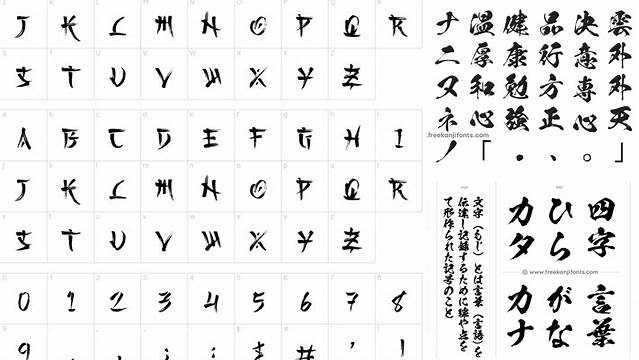
Introduction to Japanese Calligraphy Fonts
Japanese calligraphy, or Shodo, is more than just writing; it’s an art form deeply rooted in Japanese culture. It emphasizes the beauty and flow of brushstrokes, turning words into visual masterpieces. For centuries, Shodo has been used for artistic expression, religious ceremonies, and formal documents. The elegance and precision of Japanese calligraphy make it a unique and captivating art form that continues to inspire people worldwide.
Understanding Japanese calligraphy means diving into a world where each stroke tells a story. Unlike typical fonts you see on a computer, Shodo captures the essence of human touch. Each character, or kanji, hiragana, and katakana, is rendered with a brush, ink, and a deep sense of artistic intent. This art form is not just about legibility; it’s about creating a visual harmony that reflects the writer's spirit and the meaning of the words. The thick and thin strokes, the balance between empty space and filled space, and the overall composition all contribute to the final piece. The main keyword Japanese calligraphy is a testament to the dedication and skill of the calligrapher.
When we talk about Japanese calligraphy fonts, we’re referring to digital typefaces that try to mimic the look and feel of traditional Shodo. These fonts allow you to infuse your projects with the aesthetic of Japanese calligraphy without needing to master the art form yourself. Think of it as a bridge between the ancient art of calligraphy and the modern world of digital design. These fonts come in various styles, from those that closely resemble classical calligraphy to more stylized and contemporary interpretations. Whether you're designing a website, creating invitations, or working on any project that needs a touch of Japanese elegance, these fonts can be incredibly useful. The best part? Many Japanese calligraphy font generator options available online offer a free way to copy and paste these beautiful characters directly into your work, making it easier than ever to incorporate this art form into your designs. For those looking to explore Shodo, these Japanese calligraphy font generator tools are a fantastic starting point.
Using a Japanese calligraphy font generator can be a game-changer for anyone looking to add an authentic Japanese touch to their projects. Imagine you’re designing a logo, creating a poster, or even just writing a personal note – a traditional Japanese calligraphy font can instantly elevate the aesthetic. But why opt for a generator instead of trying to write it yourself or hiring a calligrapher? Let's break it down. One of the primary reasons is convenience. Not everyone has the time, resources, or skill to learn Shodo, which takes years of practice to master. A font generator allows you to create beautiful, calligraphic text instantly. You simply type in your desired text, choose a font style that resonates with you, and voila! You have a stunning piece of Japanese calligraphy at your fingertips. This is especially useful for designers, marketers, and anyone who needs quick and professional results.
Cost is another significant factor. Hiring a professional calligrapher can be expensive. Depending on the complexity and length of the piece, you could be looking at a substantial investment. On the other hand, many Japanese calligraphy font generator tools are available for free or at a very reasonable price. This makes them an accessible option for individuals and businesses of all sizes. You get the aesthetic appeal of traditional calligraphy without breaking the bank. Moreover, a Japanese calligraphy font generator offers a wide variety of styles and options. You can experiment with different fonts, sizes, and layouts until you find the perfect fit for your project. This flexibility is a huge advantage, as it allows you to customize the text to match your specific needs and preferences. Whether you’re going for a classic, elegant look or a more modern, stylized feel, a font generator can help you achieve it.
Another compelling reason to use a Japanese calligraphy font generator is the ease of copy and paste functionality. Once you’ve generated your text, you can simply copy it and paste it into your document, design software, or any other application. This seamless integration saves time and effort, allowing you to focus on other aspects of your project. Plus, the digital nature of these fonts means you can easily resize, recolor, and manipulate the text as needed, giving you even more creative control. In summary, using a Japanese calligraphy font generator is a practical, cost-effective, and efficient way to incorporate the beauty of Shodo into your work. It provides convenience, flexibility, and a professional touch, making it an invaluable tool for a wide range of applications. Guys, if you want to make your project awesome, you should definitely use a Japanese calligraphy font generator.
Another great place to find Japanese calligraphy font generator tools is on websites specifically dedicated to Japanese culture and language. These sites often have sections where you can generate text in various Japanese fonts and styles. For example, some language learning websites offer font generators as a supplementary tool for students. These generators are typically very user-friendly, allowing you to type in English or Japanese and see the text rendered in different calligraphic styles. Some even provide options to customize the size, color, and background of the text, giving you a high degree of control over the final output. Additionally, several design and graphic software programs include built-in font options that mimic Japanese calligraphy. Programs like Adobe Photoshop and Illustrator often have a selection of Asian-inspired fonts that you can use in your projects. While these may not be true calligraphy fonts in the strictest sense, they can still provide a similar aesthetic and are readily accessible if you already use these software tools.
Beyond these options, you can also find Japanese calligraphy font generator tools through online search engines. A simple search for “free Japanese calligraphy font generator” will yield a plethora of results. However, it’s essential to exercise caution when using these tools, as some may be of varying quality or may not offer the same level of customization as dedicated font websites. Look for generators that have positive reviews and offer a preview of the font before you generate the text. In conclusion, finding a free Japanese calligraphy font generator is easier than ever. With a bit of exploration, you can discover a wealth of resources that will help you add a touch of Japanese elegance to your projects. Whether you’re using a font website, a language learning tool, or a search engine, the key is to experiment and find the generator that best suits your needs.
How to Copy and Paste Japanese Calligraphy Fonts
Once you’ve found the perfect Japanese calligraphy font and generated your text, the next step is to copy and paste it into your desired application. While this process might seem straightforward, there are a few tips and tricks that can help ensure a smooth and seamless experience. The basic method for copying and pasting Japanese calligraphy fonts is similar to copying and pasting any other type of text. First, use your mouse or trackpad to select the text you want to copy. This is typically done by clicking and dragging over the text until it’s highlighted. Once the text is selected, you can use the keyboard shortcut Ctrl+C (on Windows) or Cmd+C (on Mac) to copy it to your clipboard. Alternatively, you can right-click on the selected text and choose "Copy" from the context menu.
Next, open the application where you want to paste the Japanese calligraphy font. This could be a word processor, a design program, an email client, or any other application that supports text input. Position your cursor where you want the text to appear, and then use the keyboard shortcut Ctrl+V (on Windows) or Cmd+V (on Mac) to paste the text. You can also right-click and choose "Paste" from the context menu. However, there are a few potential issues you might encounter when copying and pasting Japanese calligraphy fonts. One common problem is that the font might not display correctly in your application. This can happen if your application doesn’t support the font or if the font file isn’t installed on your computer. To resolve this, make sure that the font is properly installed on your system. You can usually do this by downloading the font file (if you haven’t already) and double-clicking it to open the font installer.
Another issue you might face is that the Japanese calligraphy font appears as a series of boxes or question marks instead of the intended characters. This typically indicates a character encoding problem. Japanese characters often require specific encoding, such as UTF-8, to display correctly. Make sure that your application is set to use the correct character encoding. In most applications, you can adjust the encoding settings in the preferences or options menu. Additionally, some online Japanese calligraphy font generator tools provide options to download the text as an image rather than plain text. This can be a useful workaround if you’re having trouble with font compatibility. By copying and pasting the text as an image, you can ensure that it displays correctly in any application. In summary, copying and pasting Japanese calligraphy fonts is generally a simple process, but it’s essential to be aware of potential issues and how to address them. By following these tips, you can seamlessly integrate these beautiful fonts into your projects and enjoy the aesthetic of traditional Shodo in your digital creations.
Tips for Using Japanese Calligraphy Fonts Effectively
Using Japanese calligraphy fonts can add a touch of elegance and authenticity to your projects, but it’s important to use them effectively to achieve the desired impact. Here are some tips to help you make the most of these beautiful fonts. First and foremost, consider the context of your project. Japanese calligraphy fonts are best suited for designs that aim to convey a sense of tradition, artistry, or Japanese culture. They can be perfect for logos, invitations, posters, and websites that want to evoke a classic or sophisticated feel. However, they might not be the best choice for projects that require a more modern or casual look. Think about the overall tone and message of your design, and choose a font that complements it.
Another crucial aspect is readability. While Japanese calligraphy fonts are visually stunning, some can be challenging to read, especially for those unfamiliar with the style. It’s essential to strike a balance between aesthetics and legibility. Use these fonts sparingly, perhaps for headings or short phrases, rather than for large blocks of text. This will help ensure that your message is clear and accessible. Also, pay attention to the size and spacing of the text. Japanese calligraphy fonts often have intricate details and varying stroke widths, so it’s important to use a large enough font size to ensure that these details are visible. Proper spacing between characters and lines can also enhance readability and prevent the text from looking cluttered. Experiment with different sizes and spacing options until you find the perfect balance.
When working with Japanese calligraphy fonts, consider the color palette and background. These fonts often look best when paired with simple, elegant colors that don’t clash with the intricate details of the characters. Neutral colors like black, white, and gray can be excellent choices, as they allow the font to stand out without being overwhelming. If you want to use color, opt for muted tones or shades that complement the overall aesthetic. The background is also important. A clean, uncluttered background can help the font stand out, while a busy background can make it difficult to read. Consider using a solid color or a subtle texture for your background to create a visually appealing contrast. In summary, using Japanese calligraphy fonts effectively requires careful consideration of context, readability, and design elements. By following these tips, you can create stunning projects that capture the beauty and elegance of traditional Shodo.
In conclusion, using a Japanese calligraphy font generator is a fantastic way to infuse your projects with the timeless beauty and elegance of Shodo. Whether you're designing a logo, creating invitations, or adding a cultural touch to your website, these tools offer a convenient and cost-effective solution. From exploring the history and artistry behind Japanese calligraphy to finding and utilizing free font generators, you've gained valuable insights into how to incorporate this art form into your work. Remember, the convenience of these generators doesn't diminish the artistry they emulate; instead, they make this art form more accessible to everyone. With the ability to copy and paste these fonts easily, you can seamlessly integrate them into various applications, ensuring your creations stand out with a touch of Japanese sophistication.
By following the tips and tricks discussed, such as considering readability and context, you can effectively use Japanese calligraphy fonts to enhance your designs. The importance of choosing the right font for the right project cannot be overstated, and understanding the nuances of Japanese calligraphy can help you make informed decisions. Whether you opt for a classic style or a more modern interpretation, the key is to ensure that the font complements your message and enhances the overall aesthetic. The journey into Japanese calligraphy is not just about the visual appeal; it's also about appreciating the rich cultural heritage behind it.
So, go ahead and explore the various free Japanese calligraphy font generator options available online. Experiment with different styles, sizes, and colors to find the perfect fit for your needs. Don't be afraid to get creative and let the beauty of Shodo inspire your next project. By embracing this unique art form, you can add a touch of sophistication and cultural richness to your work, making it truly memorable. Whether you're a professional designer or simply looking to add a personal touch to your creations, the world of Japanese calligraphy fonts is at your fingertips. Embrace the elegance, and let your creativity flow!